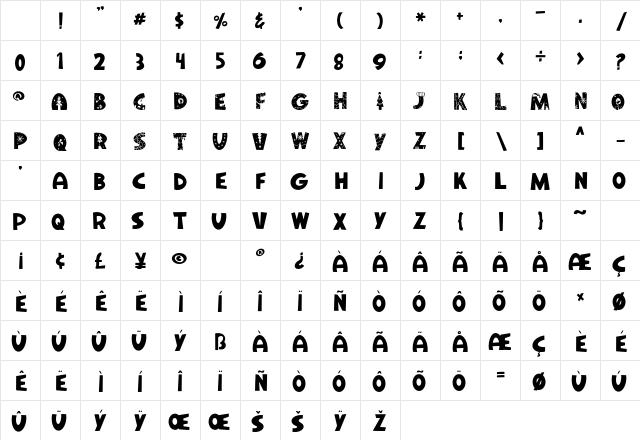
Welcome Christmas is a composed and adaptable typeface that performs quietly and consistently across a wide range of design contexts.
Who designed the Welcome Christmas Regular font?